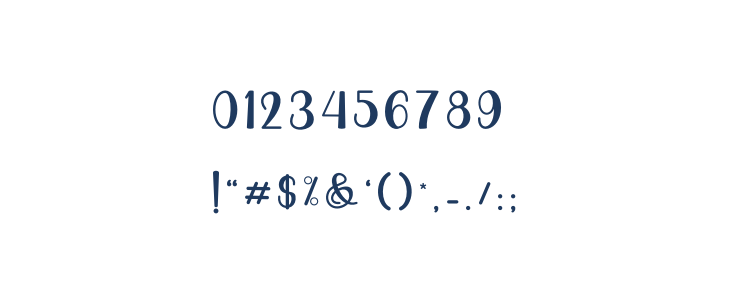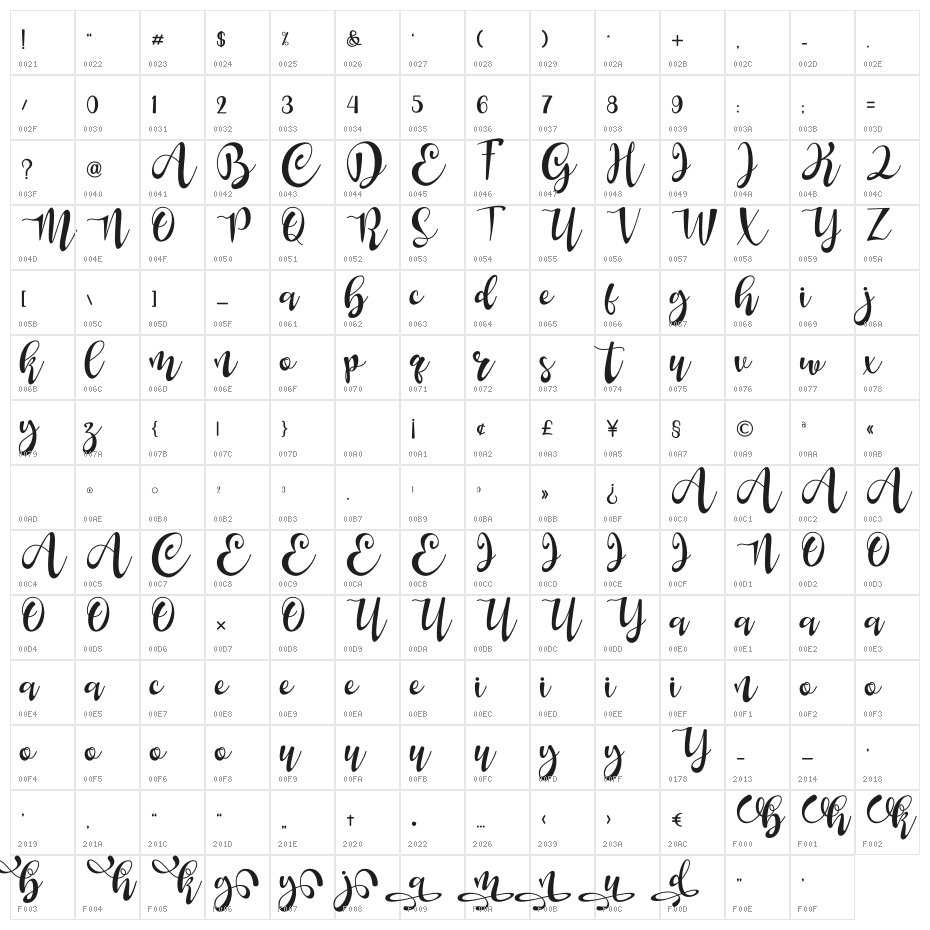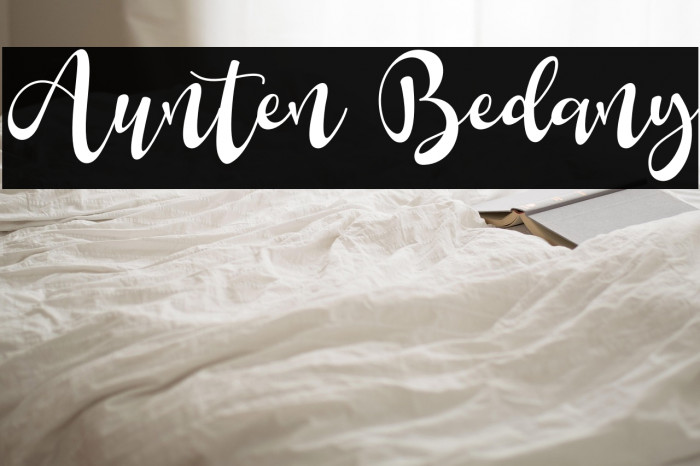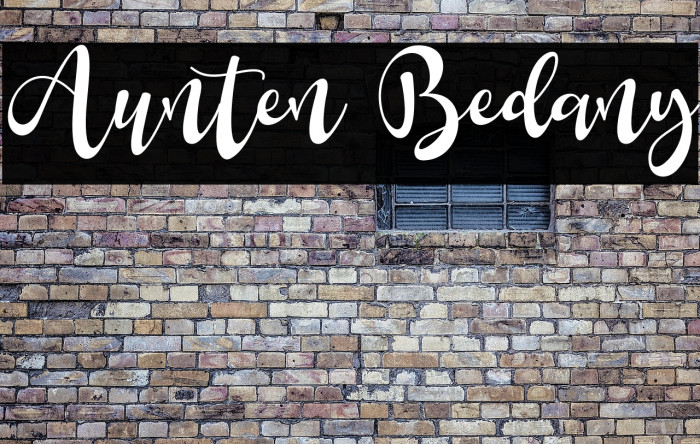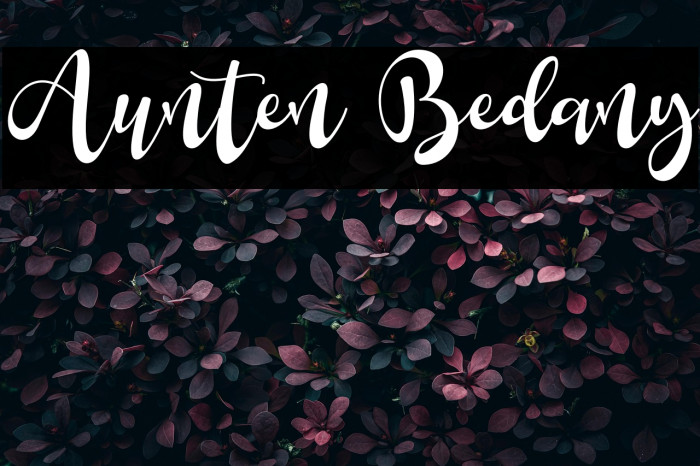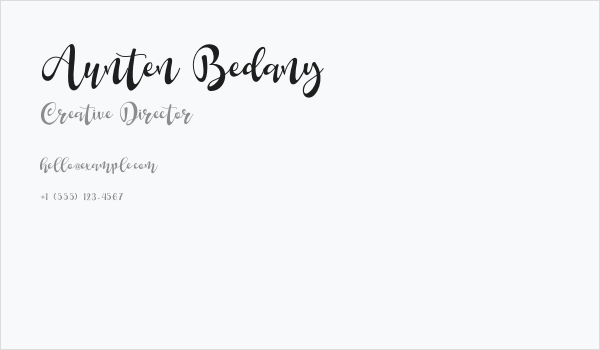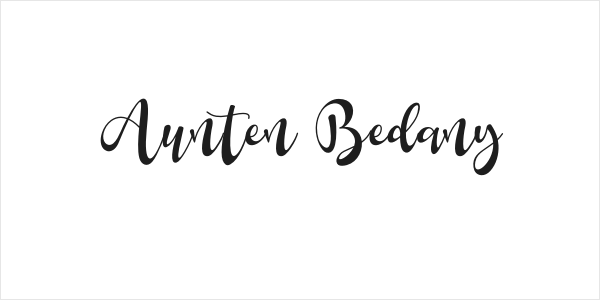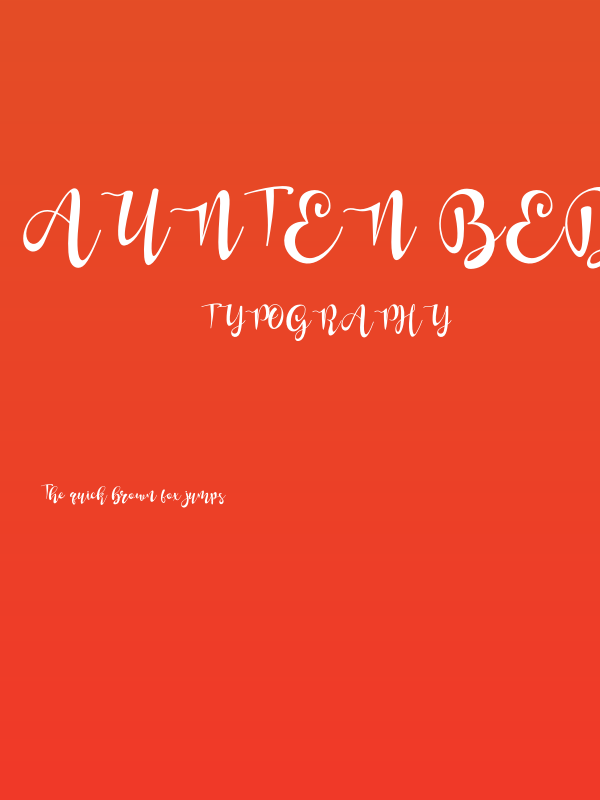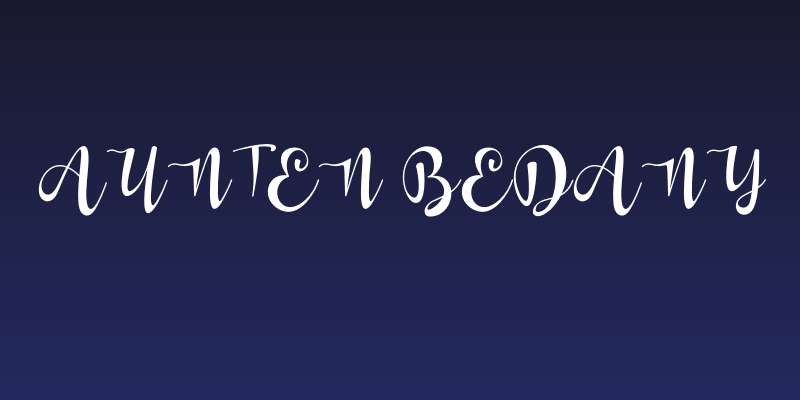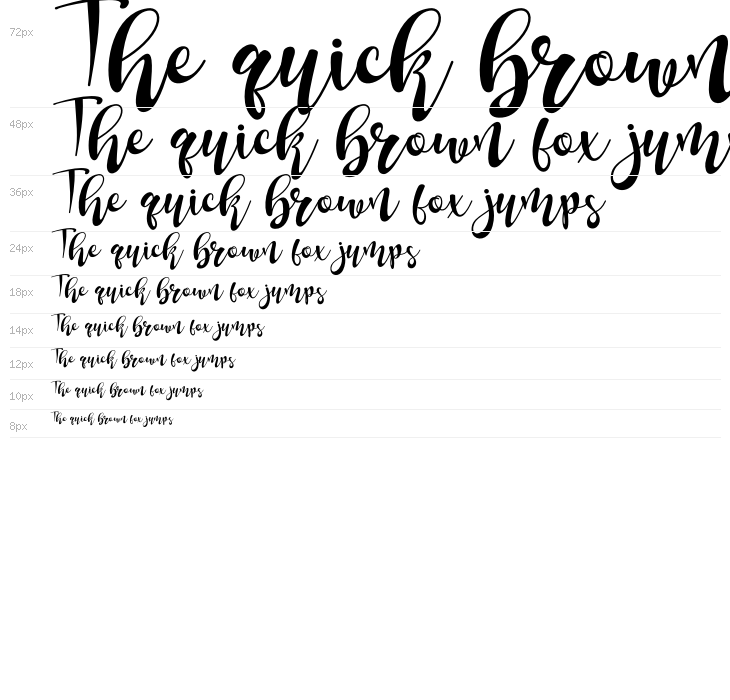
Aunten Bedany Font
Aunten Bedany Description
This font features an elegant and flowing script style, characterized by its smooth, cursive lines and graceful curves. The uppercase letters are bold and expressive, with a distinctive flair that adds a touch of sophistication. The lowercase letters maintain a consistent flow, enhancing readability while preserving the artistic nature of the script. Numbers are clear and legible, complementing the overall aesthetic. Special characters are thoughtfully designed, integrating seamlessly with the rest of the font. This font exudes a sense of elegance and creativity, making it suitable for a variety of design projects.